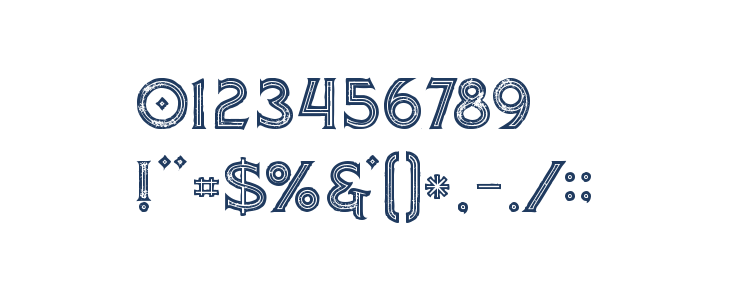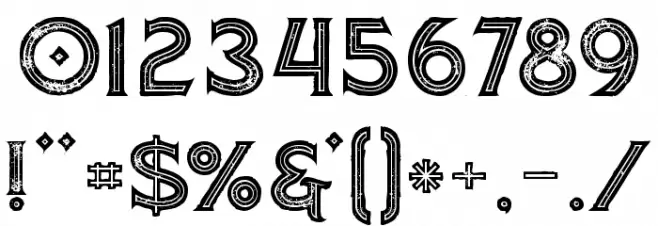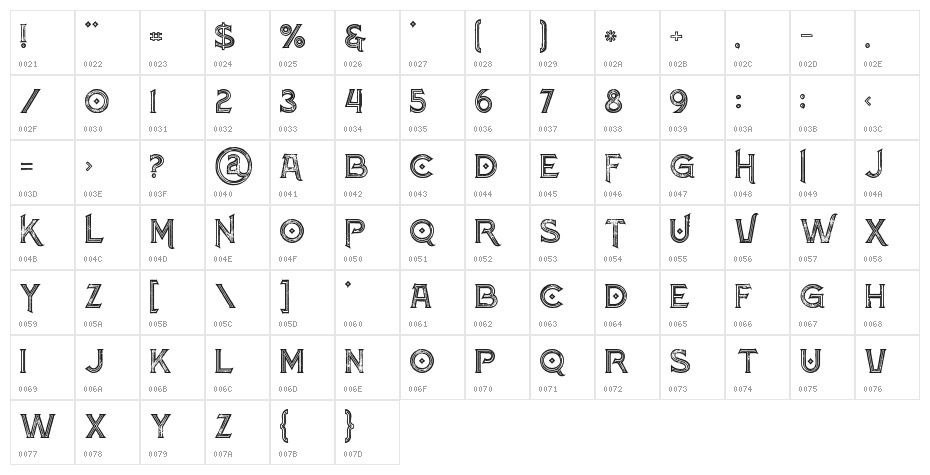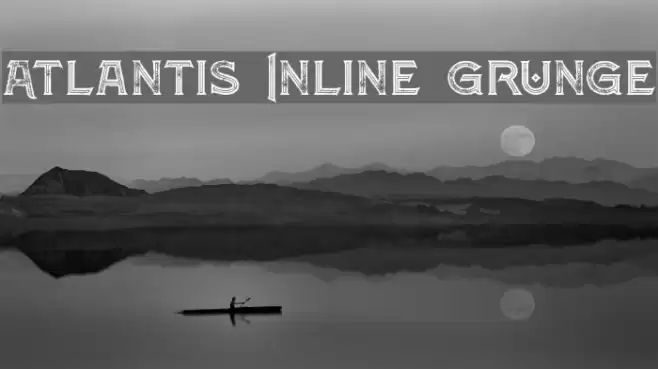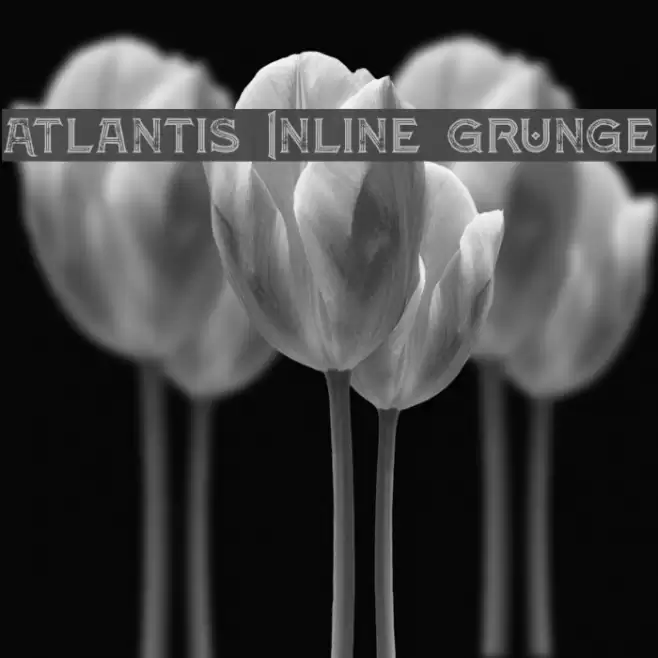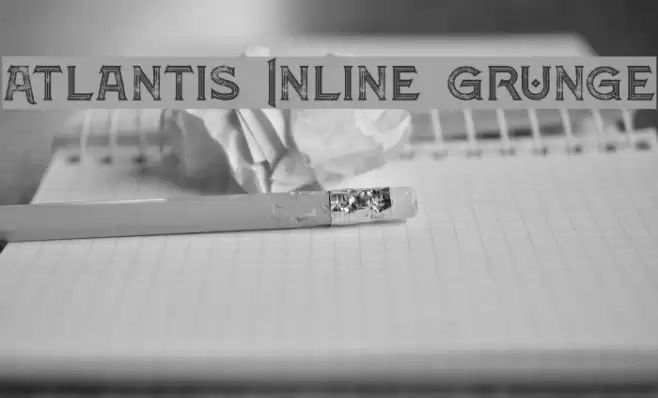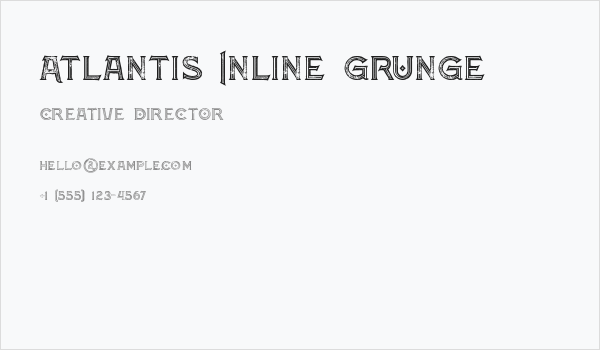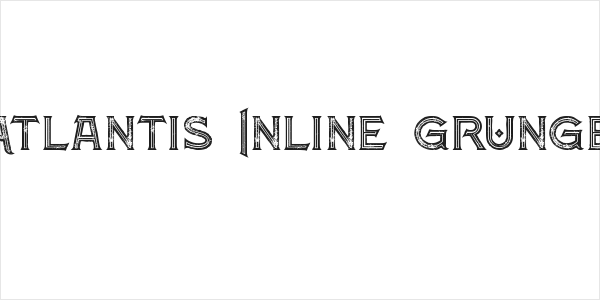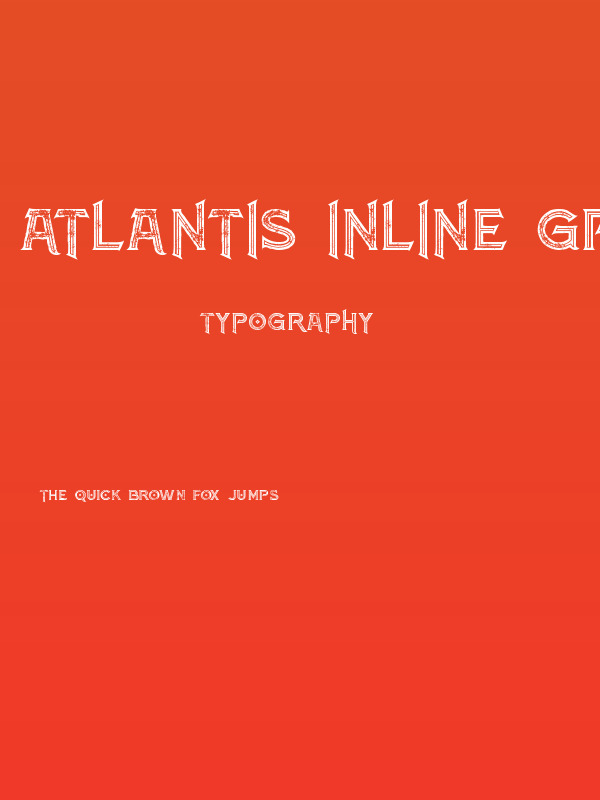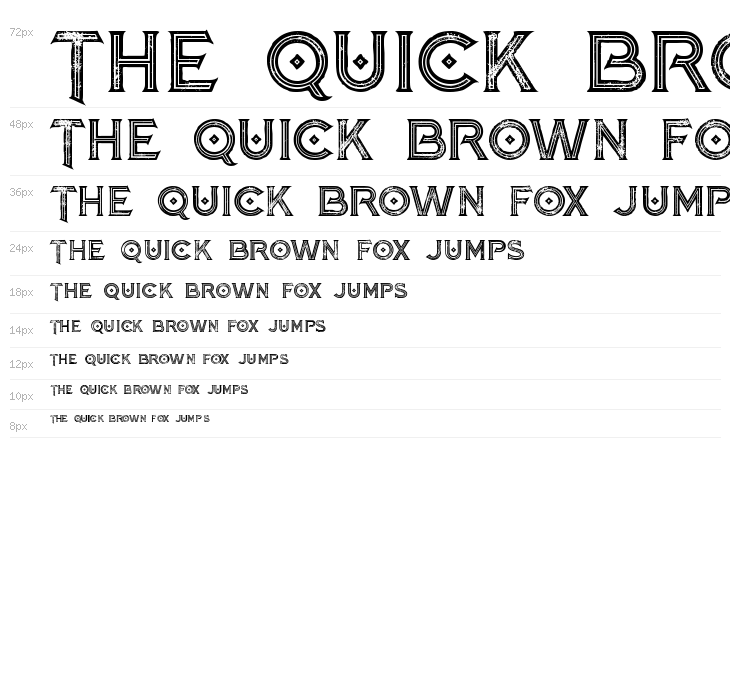
Atlantis Inline Grunge Font
Atlantis Inline Grunge Description
This font features a bold, grunge-inspired design with an inline style that adds depth and texture to each character. The uppercase and lowercase letters maintain a consistent rugged appearance, with distressed edges and a slightly uneven texture that gives a hand-crafted feel. The numbers and special characters follow the same aesthetic, making them ideal for projects that require a bold, eye-catching typeface. The overall look is both vintage and modern, combining classic serif elements with a contemporary twist. The font's unique style makes it suitable for creative projects that aim to stand out.
| Overall Style | Vintage, Modern |
| Proposed Projects | Ideal for posters, album covers, branding, and any project needing a bold, artistic touch. |